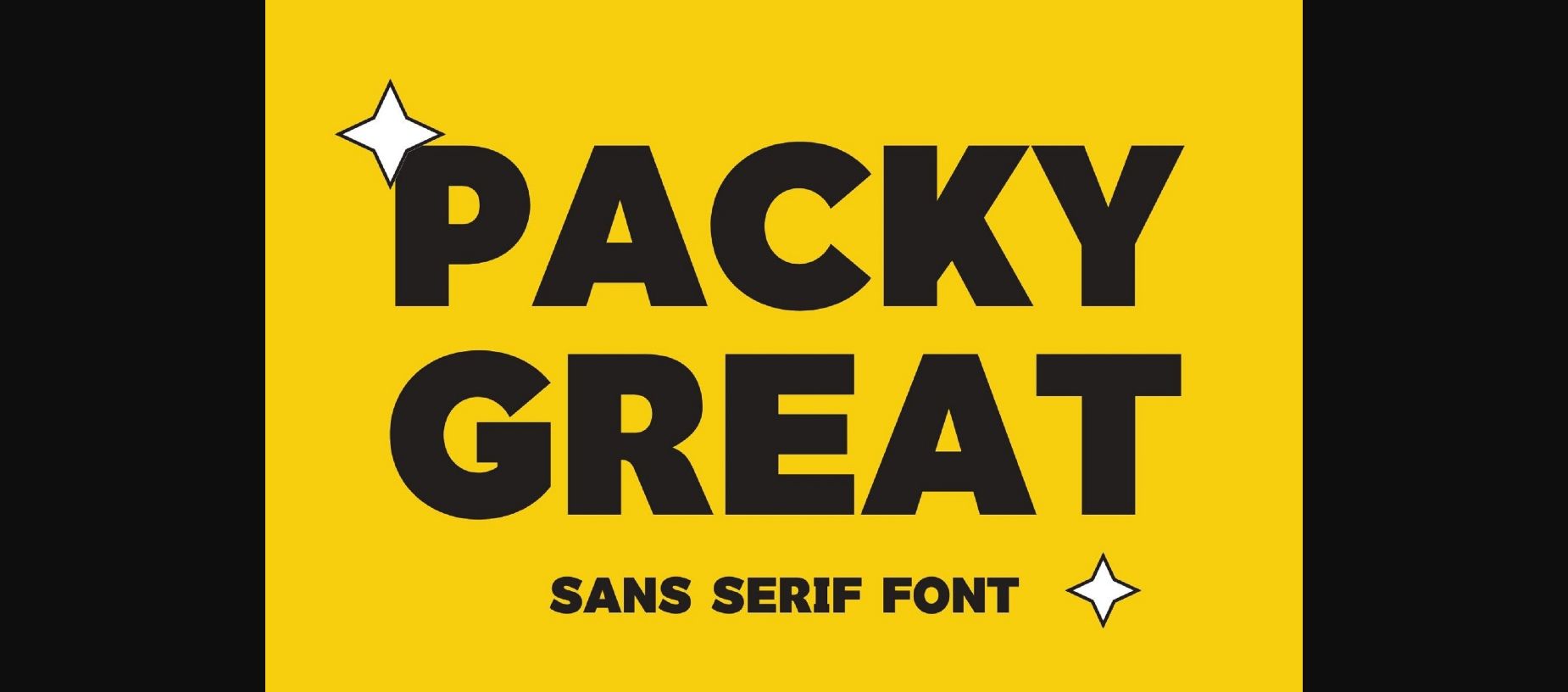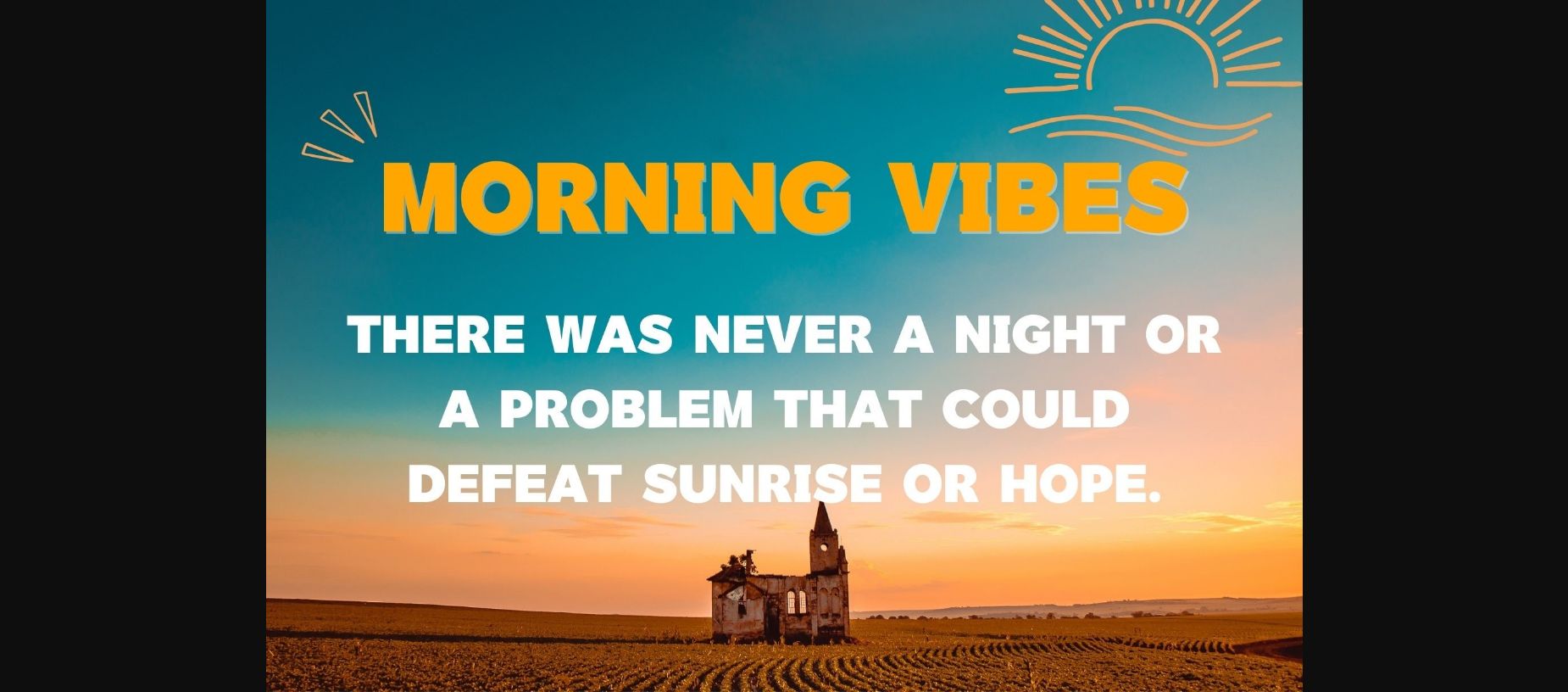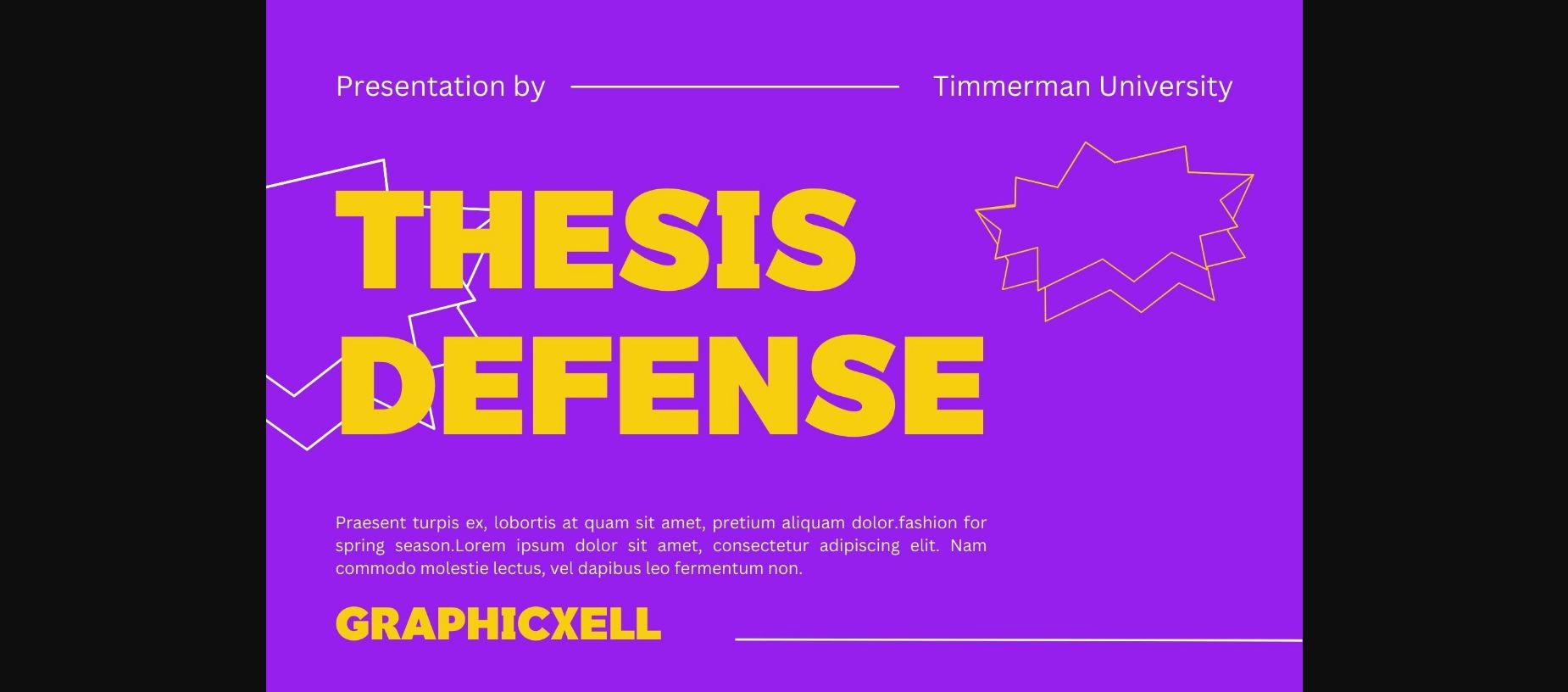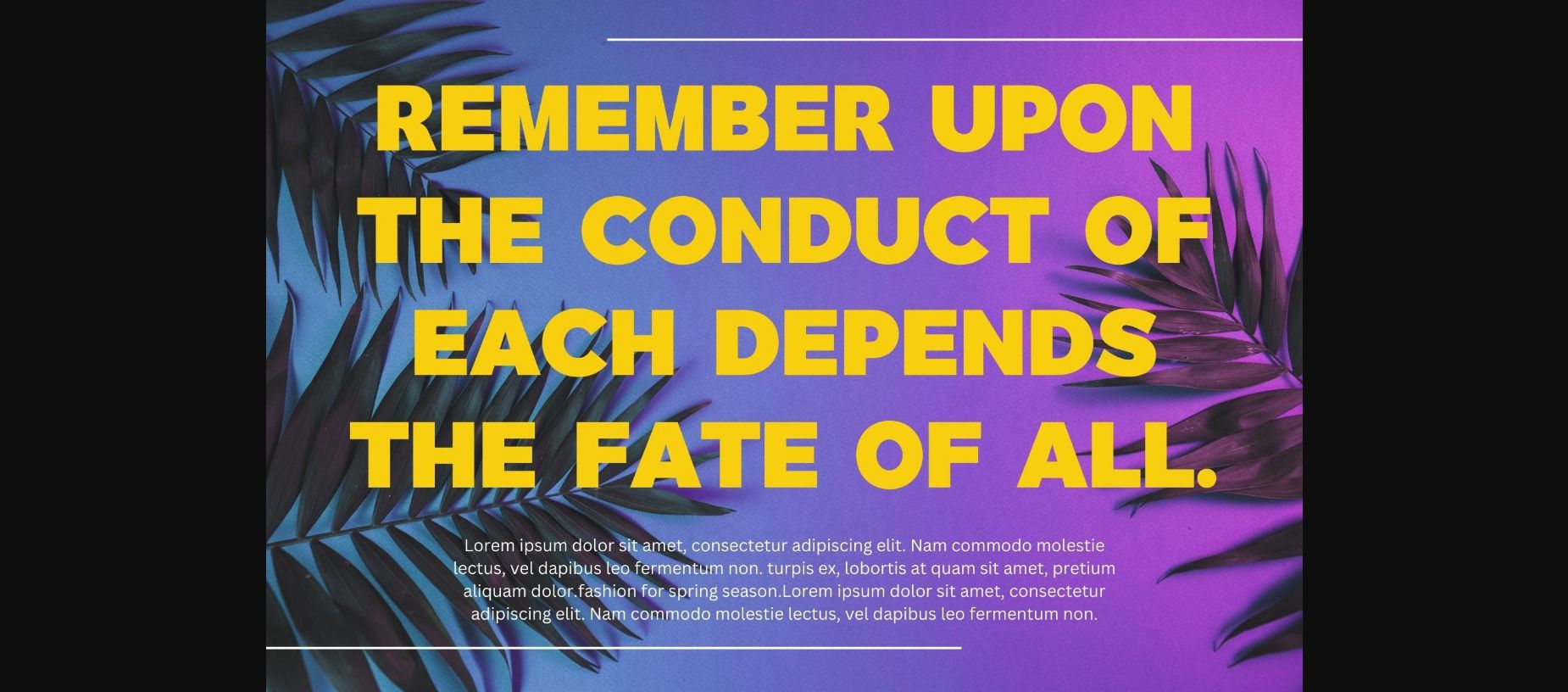
About Packy Great Font
Packy Great is a contemporary sans-serif font that embodies a perfect balance between professionalism and approachability. Its clean lines and sleek design make it ideal for a wide range of applications, from branding and headlines to digital and print media. With a touch of uniqueness, Packy Great adds a modern twist to classic simplicity, ensuring readability and impact in every use.